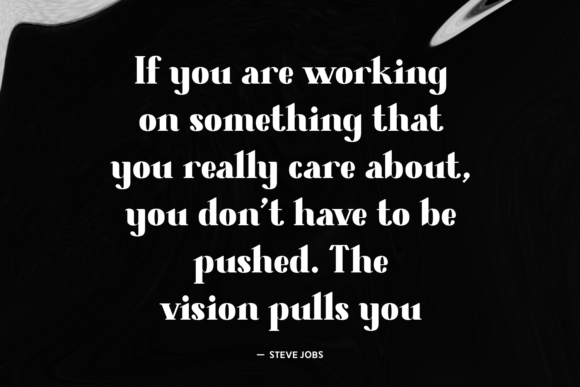
Genius Youth Font: A Modern Serif Font for Bold Branding and Headlines
In the world of typography, a font can make or break the visual identity of a brand. A well-designed font can elevate a brand’s message, convey its tone, and leave a lasting impression on its audience. Introducing the Genius Youth font, a new serif font that embodies the spirit of modernity and confidence. With its strong, confident letterforms, Genius Youth is the perfect choice for brands looking to make a statement.
What is Genius Youth Font?
Genius Youth is a serif font designed to meet the demands of modern branding and headlines. Its unique blend of classic and contemporary elements makes it an ideal choice for brands seeking a fresh and distinctive look. The font’s strong, confident letterforms exude a sense of authority and sophistication, making it perfect for headlines, titles, and promotional materials.
Key Features of Genius Youth Font
- Strong and Confident Letterforms: The font’s bold and confident letterforms make it perfect for headlines and titles that demand attention.
- Modern and Fresh Design: Genius Youth boasts a modern and fresh design that sets it apart from traditional serif fonts.
- Highly Legible: The font’s clear and legible design ensures that your message is conveyed clearly, even at smaller font sizes.
- Versatile: Genius Youth is suitable for a wide range of applications, from branding and advertising to publishing and digital media.
Using Genius Youth Font: Examples and Inspiration
Genius Youth is an incredibly versatile font that can be used in a variety of contexts. Here are some examples of how you can use this font to elevate your brand’s visual identity:
- Headlines and Titles: Use Genius Youth to create bold and attention-grabbing headlines that demand attention.
- Branding and Logo Design: The font’s strong and confident letterforms make it perfect for logo design and branding applications.
- Advertising and Marketing Materials: Use Genius Youth to create eye-catching advertising and marketing materials that stand out from the crowd.
- Digital Media: The font’s clear and legible design makes it suitable for digital media, including websites, social media, and mobile applications.
Typography Tips for Using Genius Youth Font
To get the most out of Genius Youth, here are some typography tips to keep in mind:
- Pair with a Sans-Serif Font: Pair Genius Youth with a sans-serif font to create a harmonious and contrasting typography scheme.
- Experiment with Font Sizes: Don’t be afraid to experiment with different font sizes to create visual hierarchy and emphasis.
- Use Color Effectively: Use color to enhance the font’s visual impact and create a cohesive brand identity.
In conclusion, Genius Youth is a modern serif font that is perfect for brands looking to make a statement. Its strong, confident letterforms and fresh design make it an ideal choice for headlines, titles, and promotional materials. With its versatility, legibility, and typographic flexibility, Genius Youth is a font that can elevate your brand’s visual identity and leave a lasting impression on your audience.